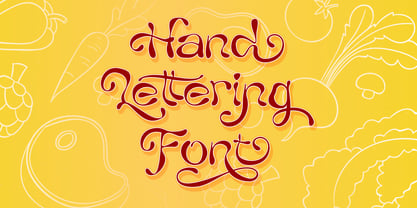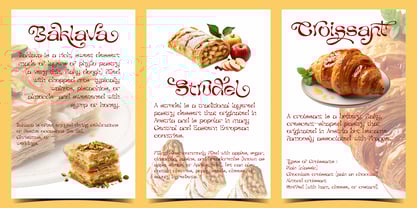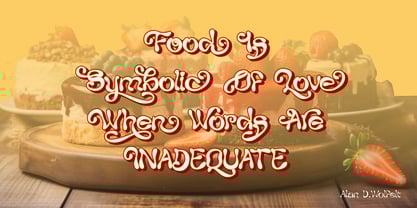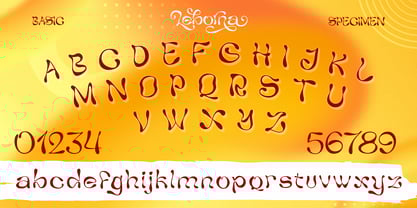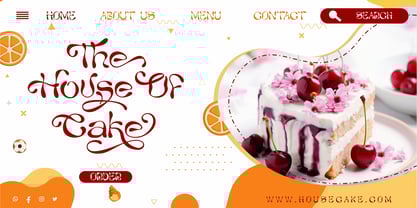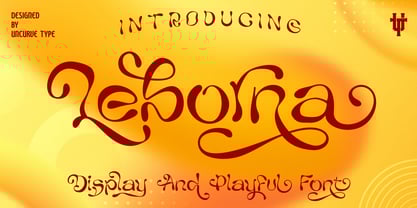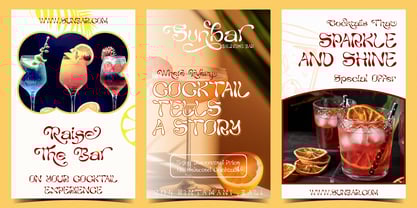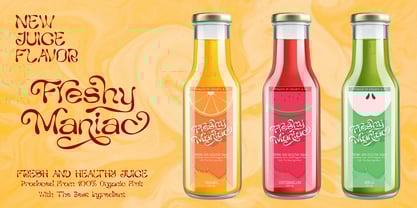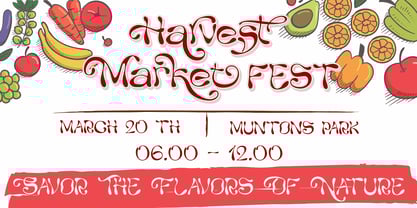
Leborna
by Uncurve
The Leborna Font Family was designed by Ferry Septian and published by Uncurve. Leborna contains 1 styles. More about this family
Leborna – Display and Playful Font
Leborna is a bold and playful hand-drawn font inspired by fluid lettering and groovy retro vibes. With its liquid-style curves and a wide range of alternate characters, Leborna brings a raw, edgy, and eye-catching personality to any design—while keeping it fun and fully readable.
Perfect for projects that need a natural, expressive touch, Leborna works beautifully for retro summer themes, vibrant logos, postcards, greeting cards, food and drink posters, product labels, music covers, cartoon titles, cafe menus, and more. Whether you're designing for a brand, a packaging label, or a psychedelic poster, Leborna helps your message flow with charm and energy.